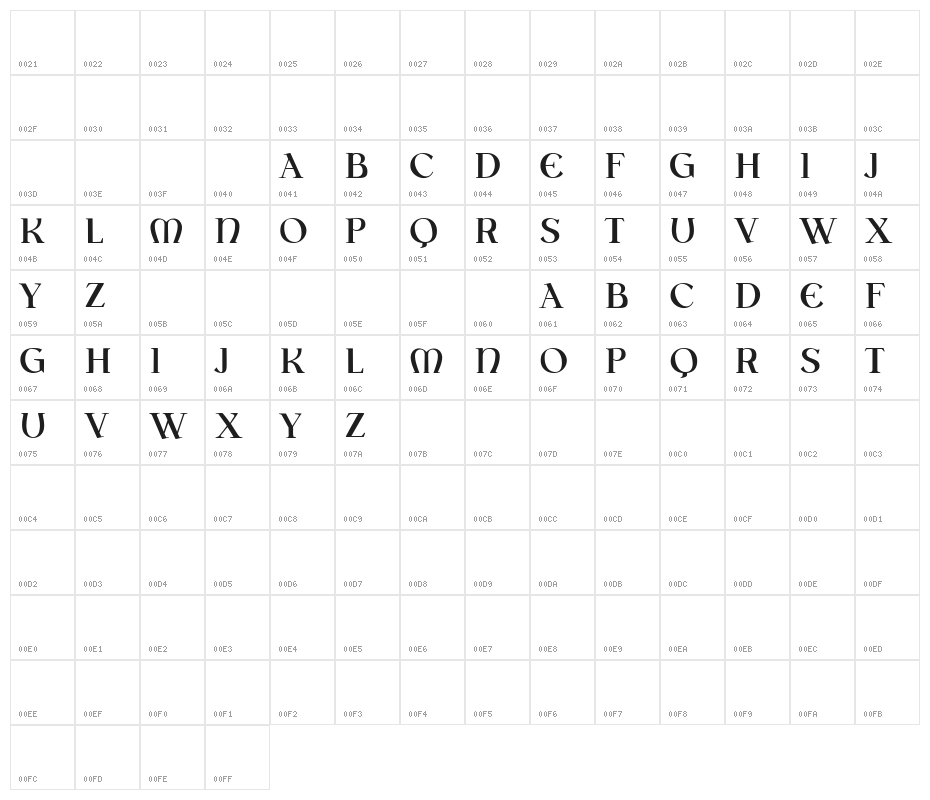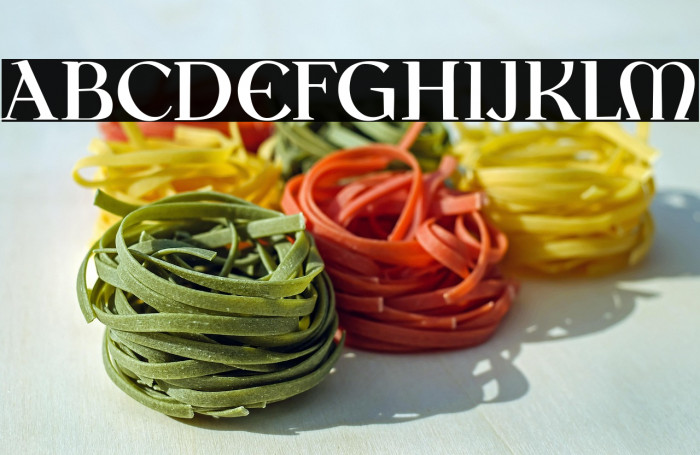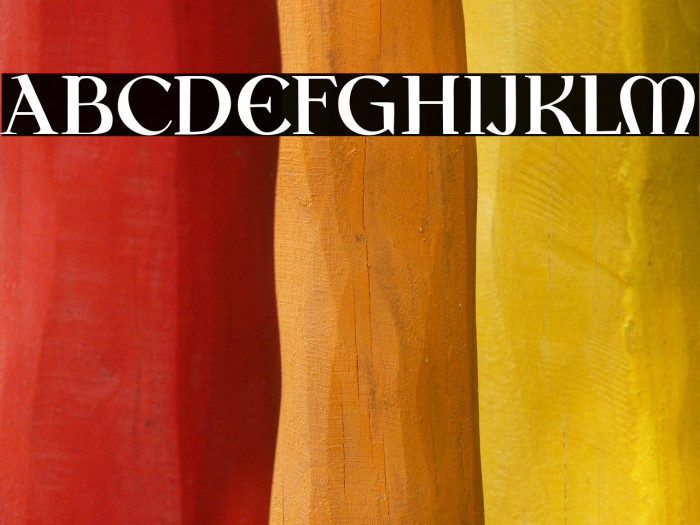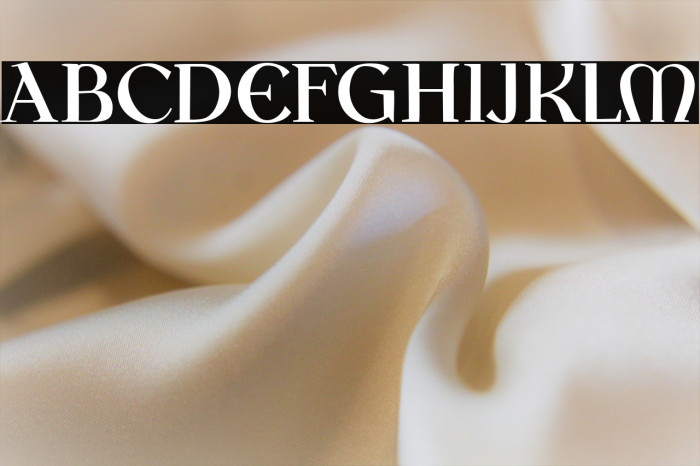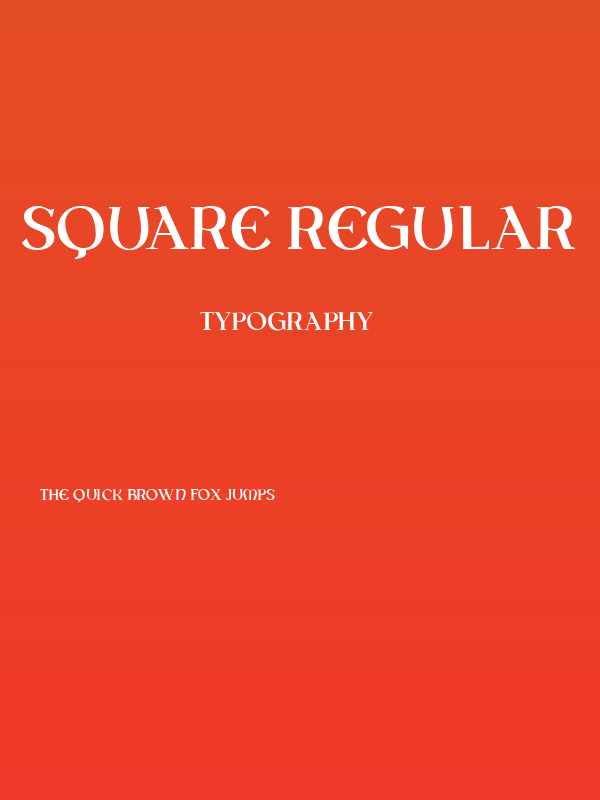
Square Regular Font
Square Regular Description
This font features a unique blend of classic and modern elements, characterized by its elegant and sophisticated design. The uppercase letters exhibit a distinct flair with subtle curves and sharp edges, creating a dynamic and engaging appearance. The lowercase letters maintain a consistent style, complementing the uppercase with their refined and graceful forms. The numerals are clear and legible, designed to match the overall aesthetic of the font. Special characters are thoughtfully crafted, ensuring versatility and functionality in various design contexts. The font's overall appearance is both timeless and contemporary, making it suitable for a wide range of applications.
| Overall Style | Classic |
| Proposed Projects | Ideal for branding, editorial design, luxury product packaging, and high-end invitations. |